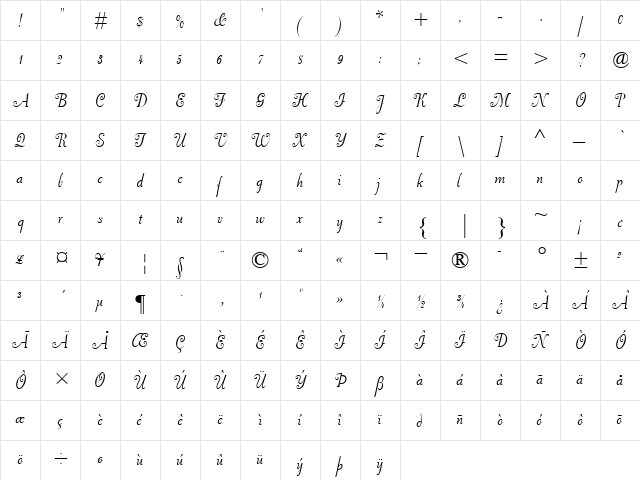
DorchesterScriptMT Regular
Design Context for DorchesterScriptMT Typeface
DorchesterScriptMT flows with the natural rhythm of handwritten lettering, making it ideal for designs that call for warmth and personal expression.
Font Pairing: Combine DorchesterScriptMT with a simple geometric sans for maximum contrast — the tension between flowing curves and clean structure is a classic typographic pairing.
Pro Tip: Use DorchesterScriptMT for short runs of text — names, titles, or taglines. Extended body copy in script faces tires the eye quickly.